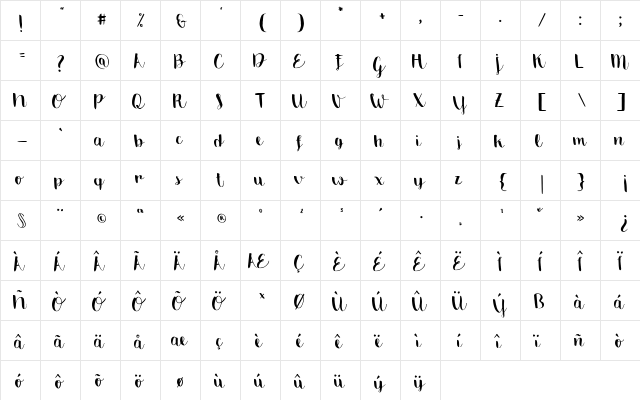
Emily The Brush Demo Regular
| Foundry | Monocromo s.n.c. |
| Designer | Andrea Cerboneschi for Monocromo |
Design Context for Emily The Brush Demo Typeface
Emily The Brush Demo brings a calligraphic fluidity to the page — its connecting strokes and expressive curves give it an unmistakably human quality.